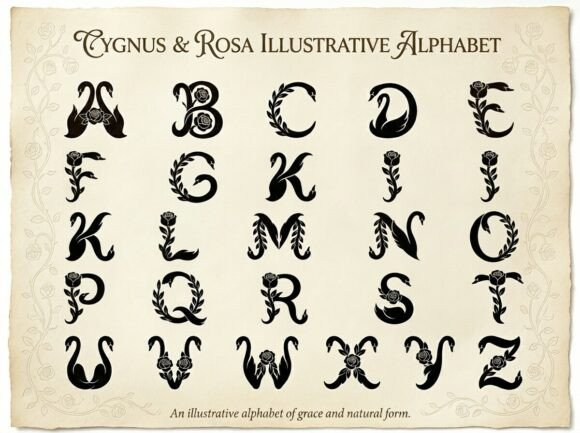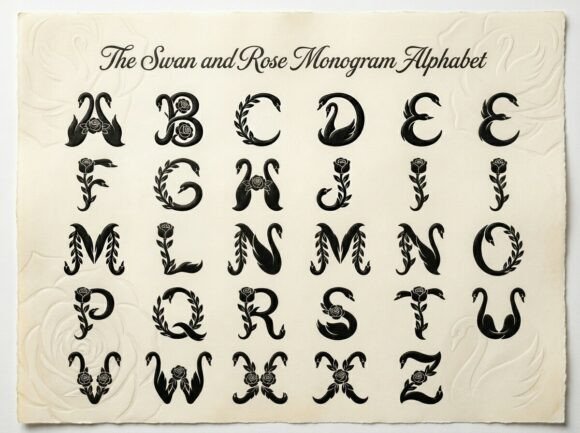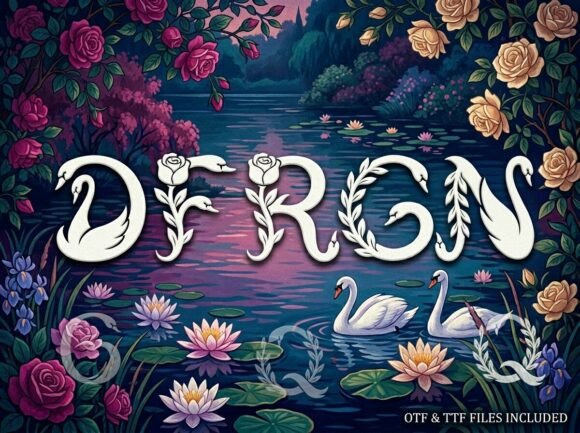
Introducing Efren Font: A Stunning Decorative Display Font
Are you tired of using the same old fonts for your designs? Look no further! Efren Font is a game-changing decorative display font that’s sure to turn heads. With its unique artistic elements and strong visual personality, this font is perfect for creators who want to break away from the ordinary and make a statement.
What Makes Efren Font Special?
Efren Font is a versatile font that’s designed to be the center of attention. Its stunning decorative elements make it perfect for bold headlines, artistic logos, and creative packaging. Whether you’re a designer, crafty DIY enthusiast, or entrepreneur, this font is sure to elevate your brand and make it stand out from the crowd.
Key Features of Efren Font
- Unique Artistic Elements: Efren Font features intricate and artistic elements that give it a distinctive look and feel.
- Strong Visual Personality: This font has a bold and confident personality that’s sure to make a statement.
- Versatile: Efren Font is perfect for a variety of design applications, including bold headlines, artistic logos, and creative packaging.
- Professional and Polished Finish: Despite its bold and artistic nature, Efren Font maintains a professional and polished finish that’s suitable for high-end designs.
Before you purchase Efren Font, please note that it’s an ALL-CAPS (Uppercase Only) display typeface. This means that it does not include lowercase letters. It’s specifically designed for high-impact headlines, logos, and decorative initials where every letter is a work of art.
This unique design approach allows for a level of detail and craftsmanship that’s unparalleled in traditional fonts. Each uppercase letter is carefully crafted to be a stunning work of art, making Efren Font perfect for designs where you want to make a bold statement.
Use Cases for Efren Font
Efren Font is perfect for a variety of design applications, including:
- Headlines and Titles: Use Efren Font to create bold and eye-catching headlines that grab attention.
- Logos and Branding: This font is perfect for creating unique and memorable logos that reflect your brand’s personality.
- Packaging and Product Design: Efren Font can add a touch of elegance and sophistication to your packaging and product designs.
- Signage and Displays: Use Efren Font to create eye-catching signage and displays that showcase your brand’s message.
Efren Font is a stunning decorative display font that’s sure to elevate your designs and make them stand out from the crowd. With its unique artistic elements, strong visual personality, and versatility, this font is perfect for creators who want to break away from the ordinary and make a statement. Whether you’re a designer, crafty DIY enthusiast, or entrepreneur, Efren Font is a must-have font that will take your designs to the next level.